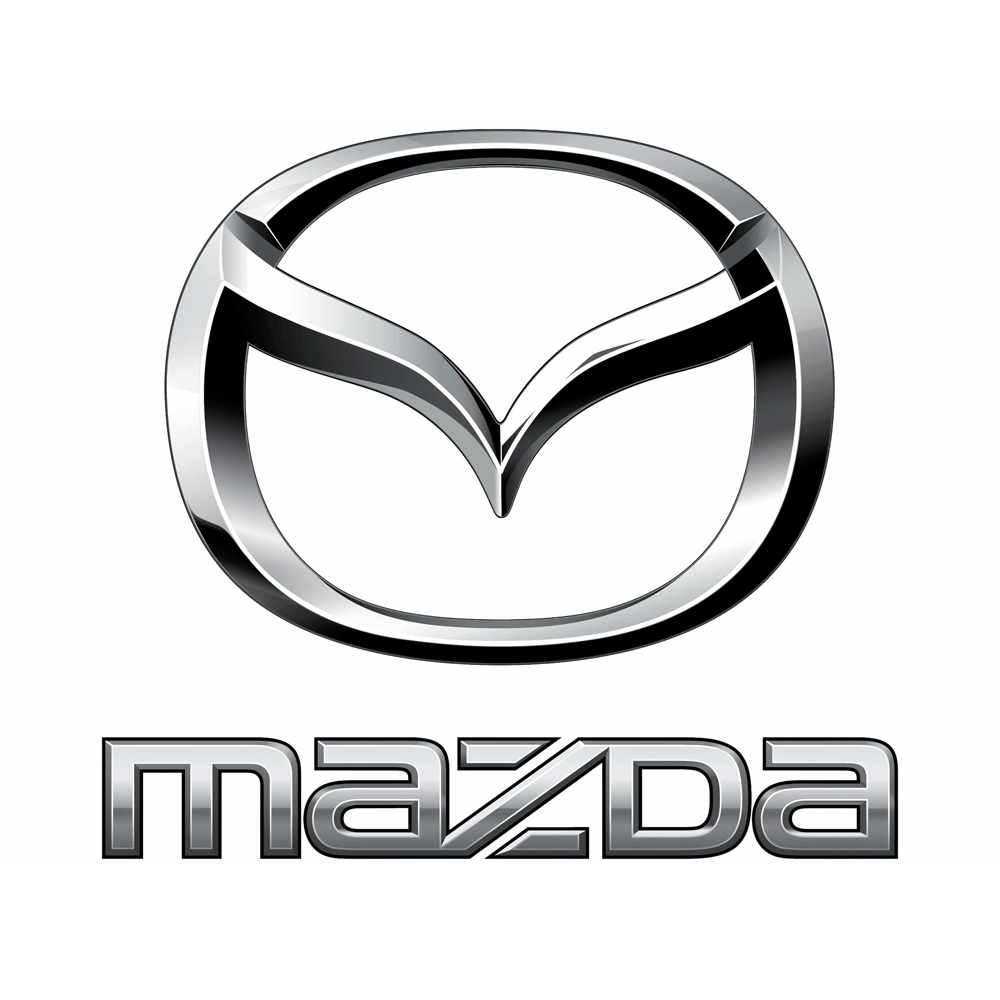
Mazda Font
AutomobileMazda Motor Corporation is a Japanese multinational automotive manufacturer headquartered in Hiroshima, Japan. The company has been manufacturing a range of vehicles, including sedans, hatchbacks, SUVs, and trucks, as well as sports cars and performance vehicles since its founding in 1920.
The stylized, winged "M" in the current Mazda emblem, which was first used in 1997, represents the corporation stretching its wings as it soars into the future. Under the wing symbol, there is a custom-made company wordmark. ShyFonts' SF Automaton typeface somewhat matches its lettering. Eight different forms of SF Automaton are available, each with a comprehensive character set. You can download them for free in the Fonts Used Section.